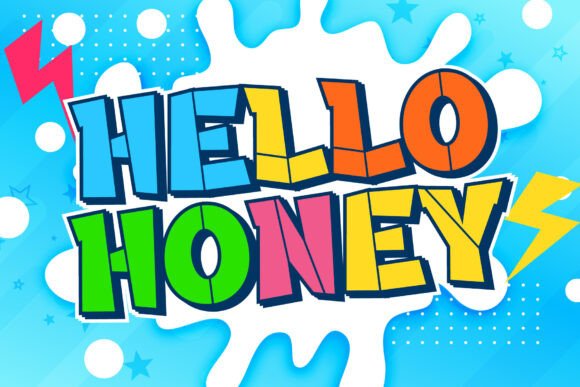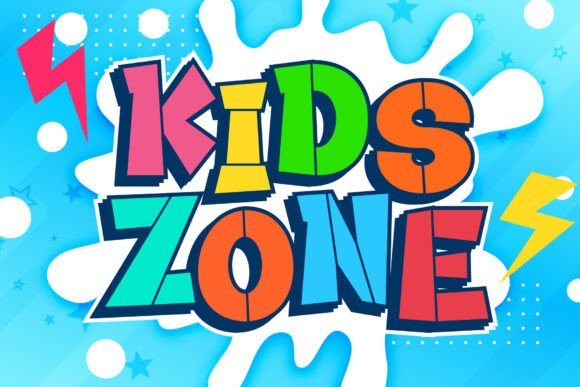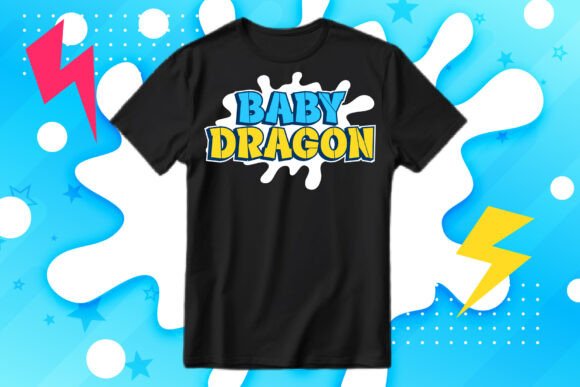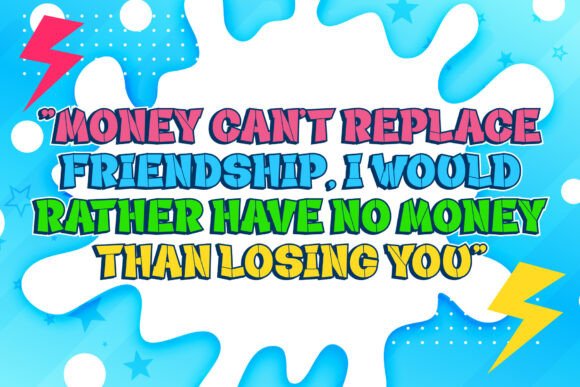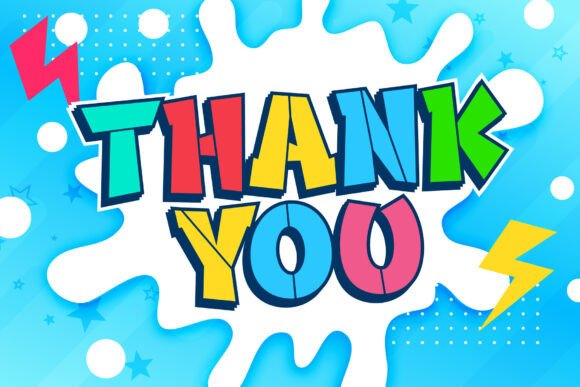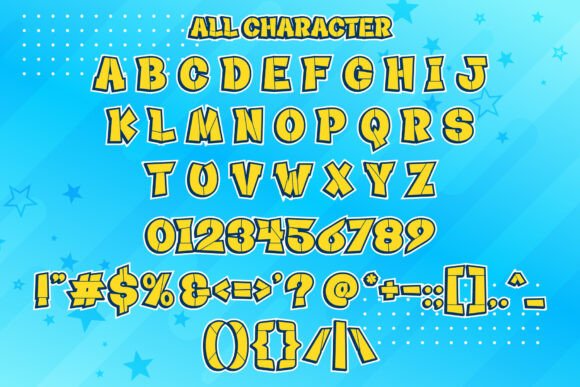
The Perfect Font for a Jolly Touch
Remember that moment when you were brainstorming ideas for a cartoon character or a magazine cover, and you wished you had the perfect font to bring your vision to life? You know, the one that screams fun, confidence, and authenticity? Well, you’re in luck because we’ve got just the thing – the Cartoon Stencil Font.
This fun and thick lettered display font is a game-changer for designers who want to add a jolly touch to their creations. Whether you’re working on cartoons, magazine covers, games, or any other project that requires a playful vibe, the Cartoon Stencil Font is the perfect addition. Its charm and confidence will make your message stand out, and its urban and casual feel will make it perfect for a wide range of designs.
Cartoon Stencil Font Key Features
- Font Type: Stencil font with a cartoon-like appearance, ideal for creating playful and whimsical designs.
- Unique Characteristics: Distinctive stencil design with rounded edges and a bold, playful feel, perfect for creating eye-catching graphics and logos.
Cartoon Stencil Font Review
Overall, I think the Cartoon Stencil Font is a fun and playful choice for designs that need a casual, laid-back vibe. ✨ It’s perfect for children’s books, party invitations, and other projects where you want to evoke a sense of whimsy and imagination.
The font’s stencil design gives it a unique texture that adds depth and visual interest to your designs. ✨ The bold lines and rounded edges make it easy to read and understand, even at small sizes.
- Fun and playful vibe: The Cartoon Stencil Font is perfect for designs that need a casual, laid-back feel.
- Unique texture: The stencil design adds depth and visual interest to your designs.
- Easy to read: The bold lines and rounded edges make it easy to read and understand, even at small sizes.
While the Cartoon Stencil Font is a great choice for many designs, it’s not without its limitations. ⚠️ Here are a few things to keep in mind:
- Not suitable for formal designs: The font’s playful vibe makes it unsuitable for formal or professional designs.
- May not be legible at very small sizes: While the font is easy to read at most sizes, it may become difficult to read at very small sizes.
Overall, I think the Cartoon Stencil Font is a great choice for designers who want to add a fun and playful touch to their designs. Just be sure to use it in the right context and at the right size.
The Cartoon Stencil Font is ideal for:
– Children’s books and educational materials
– Marketing materials, such as flyers and posters
– Social media graphics and advertisements
– Any project that requires a playful and whimsical tone
Remember to keep your design simple and clean to avoid overwhelming the viewer with too much information.